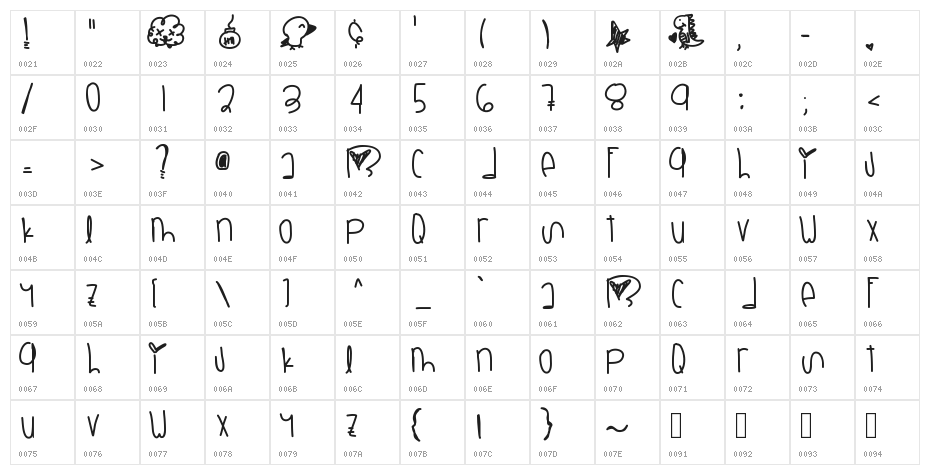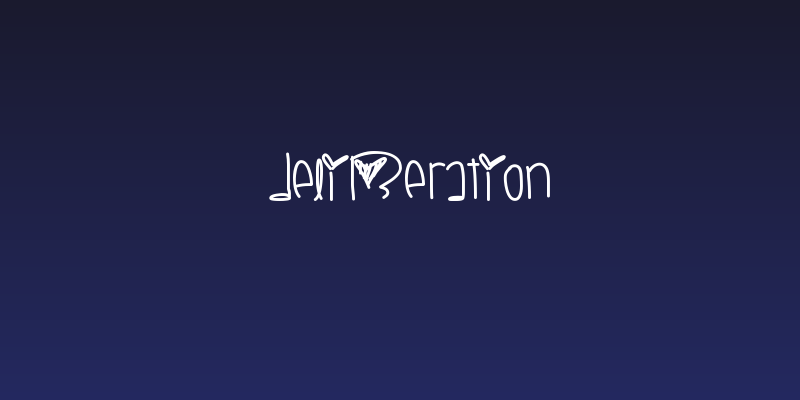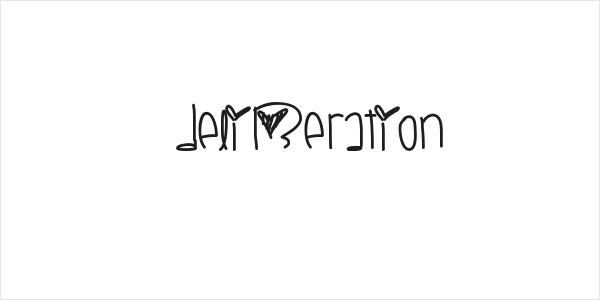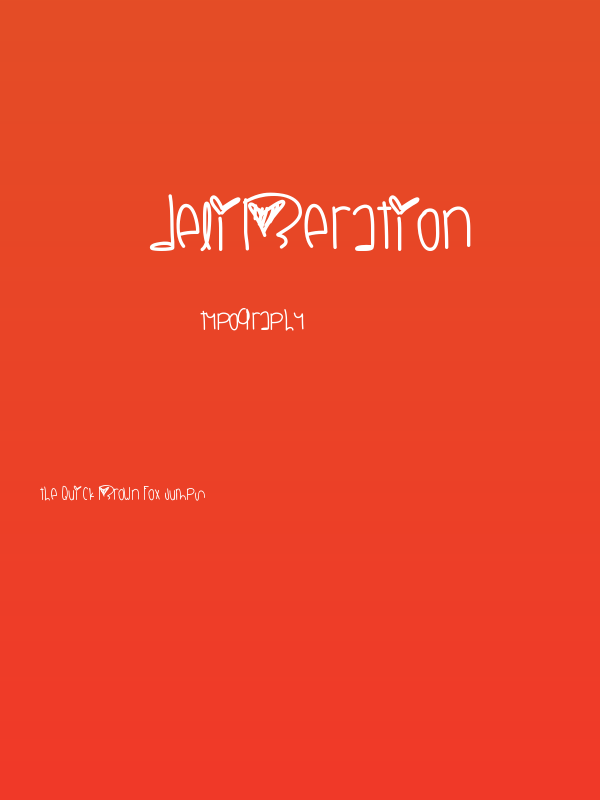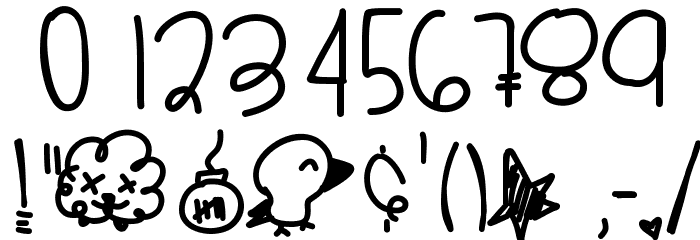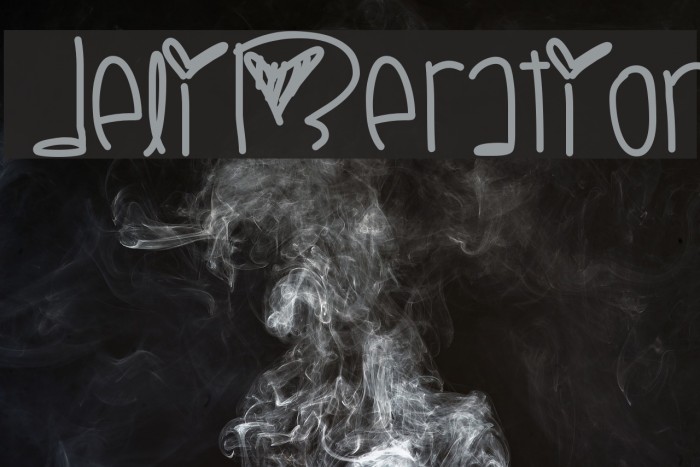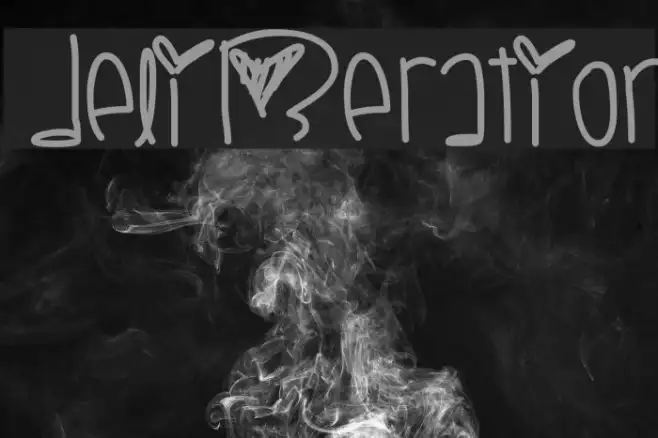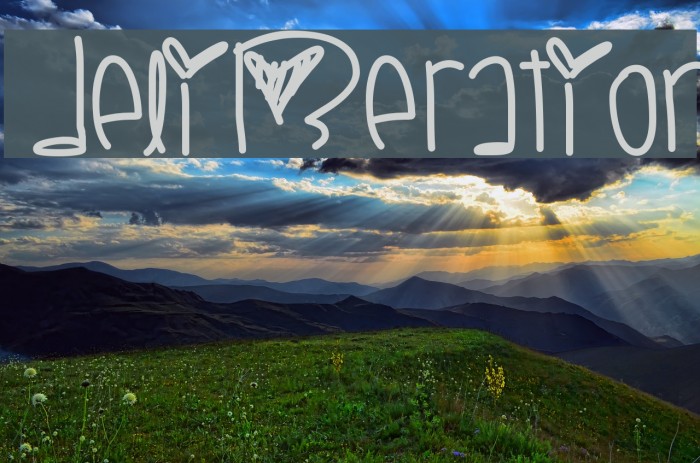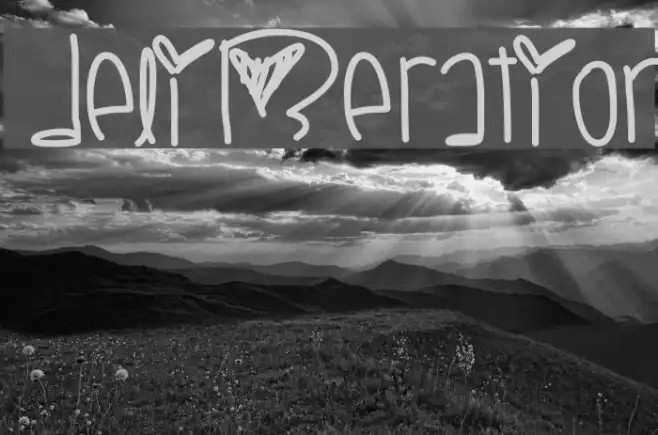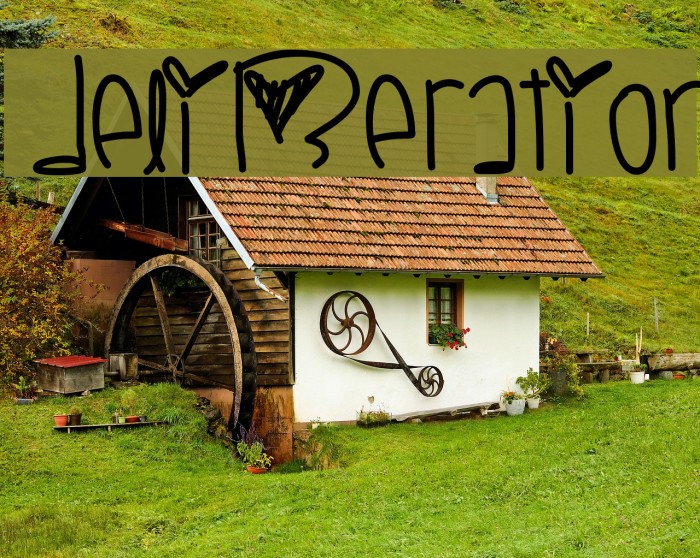
Deliberation Font
Deliberation Description
This playful and whimsical font features a hand-drawn style with a casual and informal appearance. The characters are uneven and slightly irregular, giving it a unique and artistic flair. The uppercase and lowercase letters maintain a consistent height, while the numbers and special characters add a touch of creativity with their quirky designs. The font's overall look is reminiscent of doodles or sketches, making it ideal for projects that require a fun and lighthearted touch. Its distinctive style is perfect for adding personality and charm to any design.
| Proposed Projects | Ideal for children's books, greeting cards, casual invitations, and creative posters. |